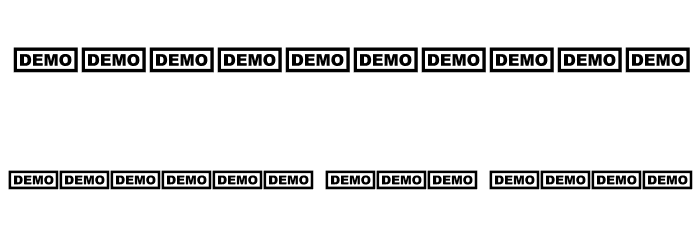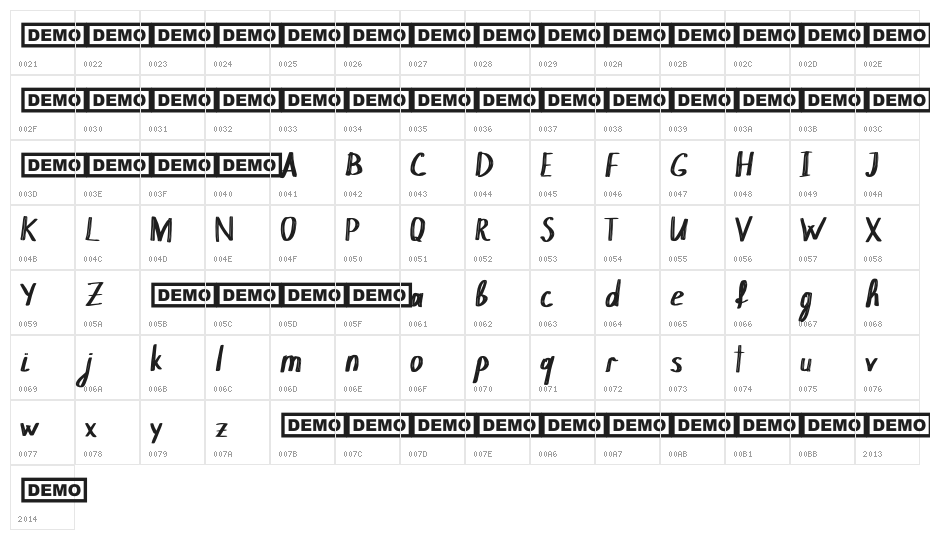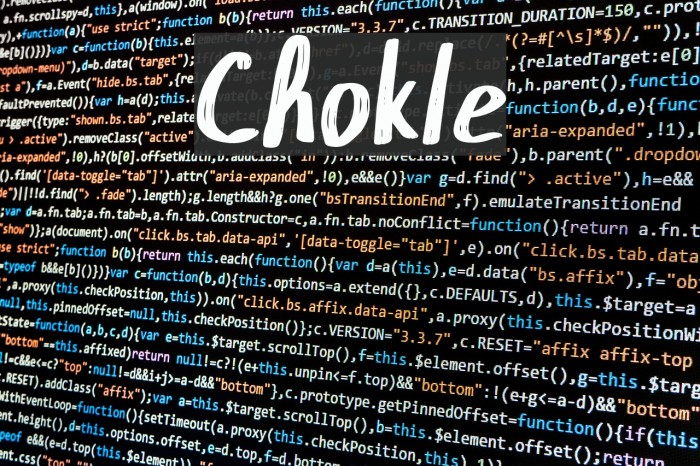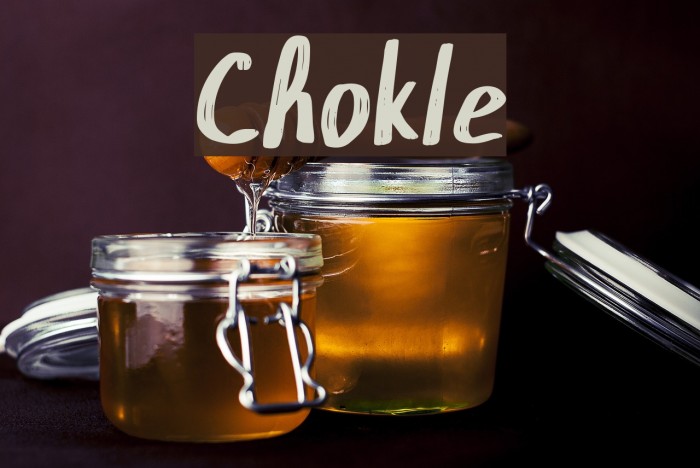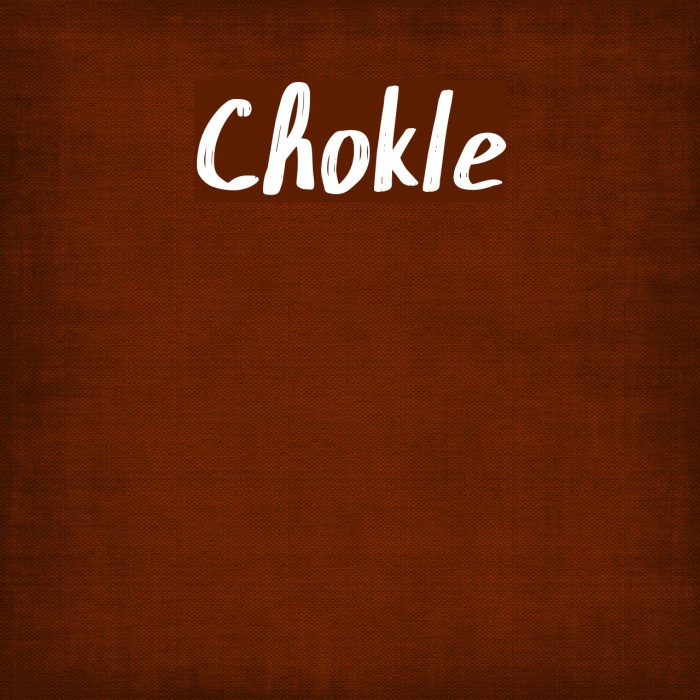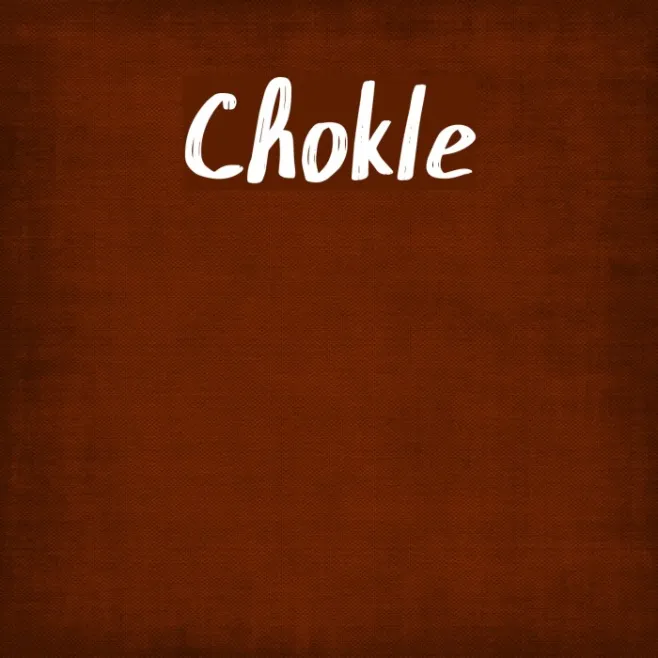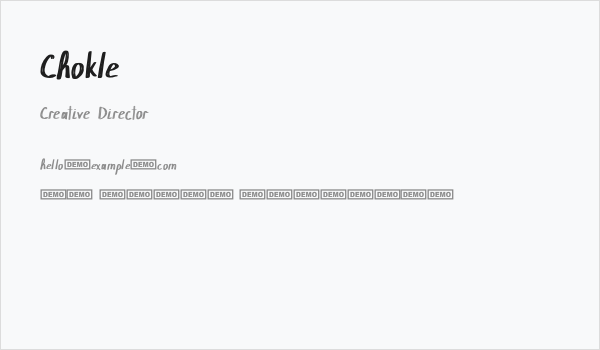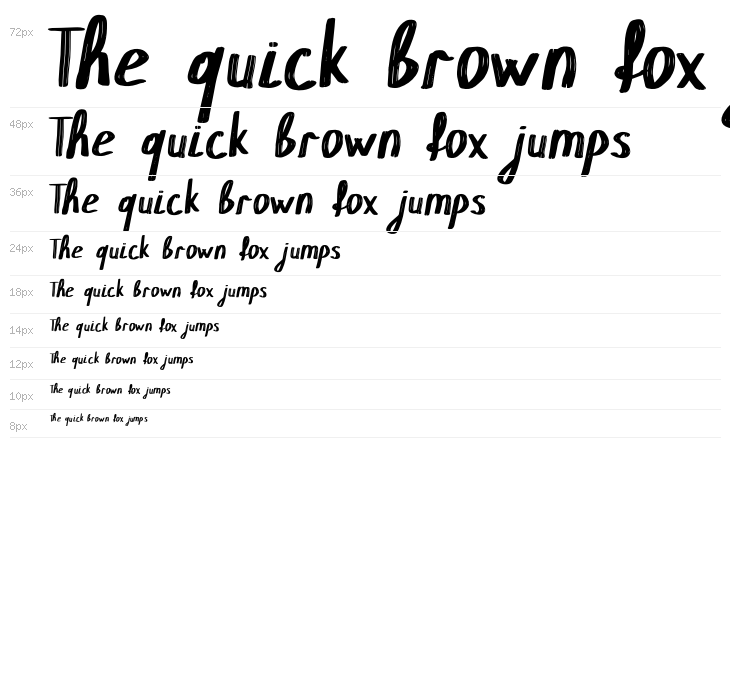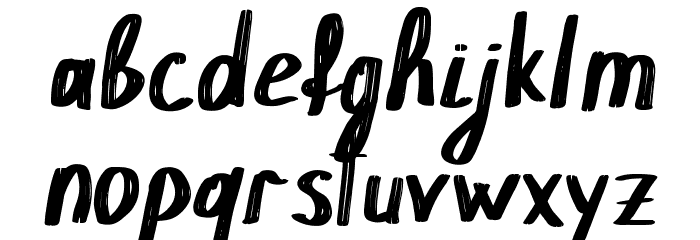
Chokle Font
Chokle Description
This font features a bold, expressive style with a hand-drawn appearance. The letters are characterized by uneven strokes and a playful, artistic flair, giving it a dynamic and energetic feel. The uppercase and lowercase letters maintain a consistent style, with varying stroke widths that add to its handcrafted look. The font's unique brush-like texture makes it stand out, ideal for creative and informal designs. It captures attention with its bold presence and artistic charm, making it suitable for projects that require a personal touch.
| Proposed Projects | Ideal for posters, branding, social media graphics, and creative projects that require a personal and artistic touch. |